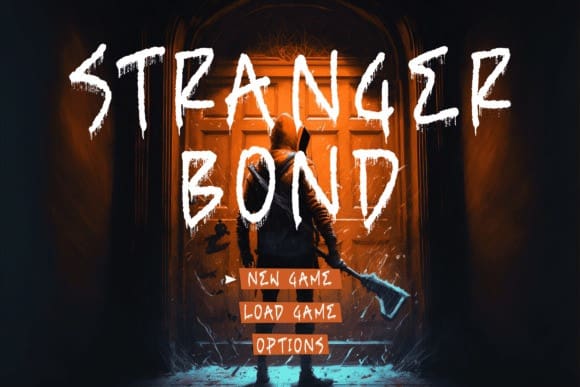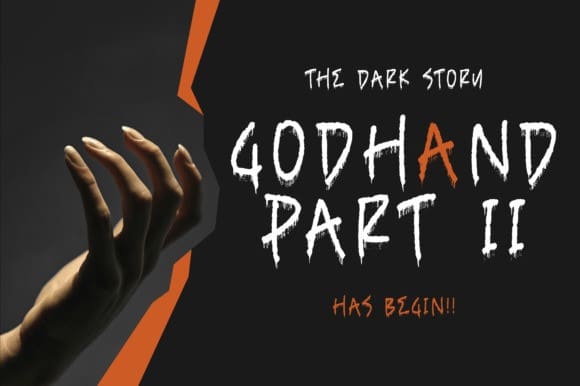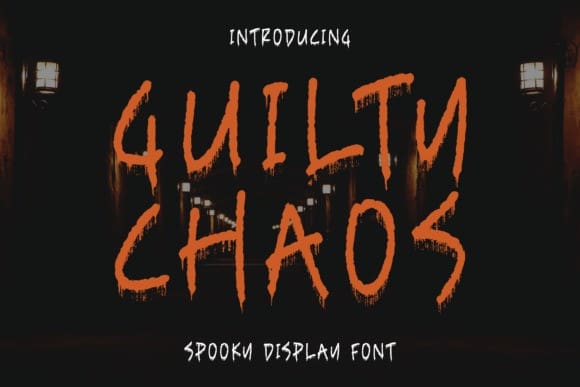
Guilty Chaos Font
Guilty Chaos Font is a cool, spooky handwritten font. You can use it for horror-themed designs, Halloween stickers, hard-rock album covers, or anything that requires a unique vibe.